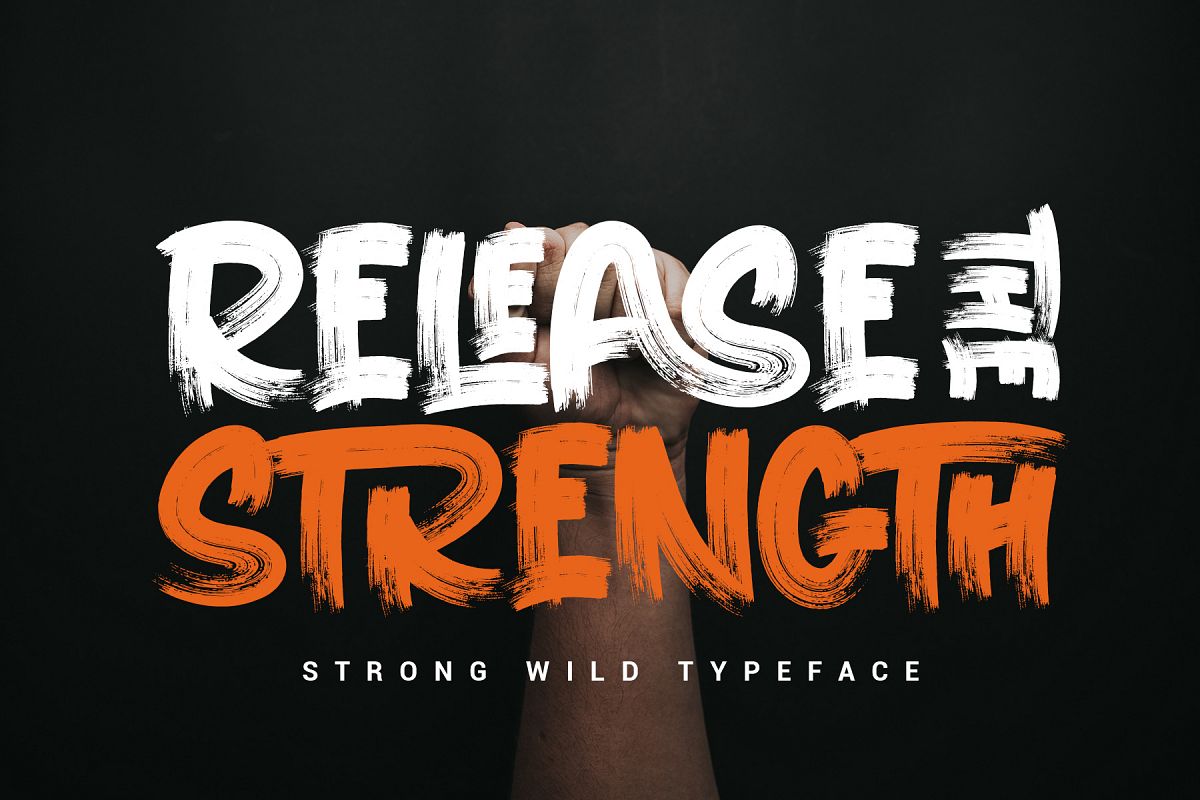
RELEASE THE STRENGTH // WILD TYPEFACE
RELEASE THE STRENGTH
Introducing my new font RELEASE THE STRENGTH STRONG WILD BRUSH
this font 100% textured brush. make your design feel strong!
IMPORTANT, THIS FONTS SHOULD TYPING WITH CAPITALS/UPPERCASE